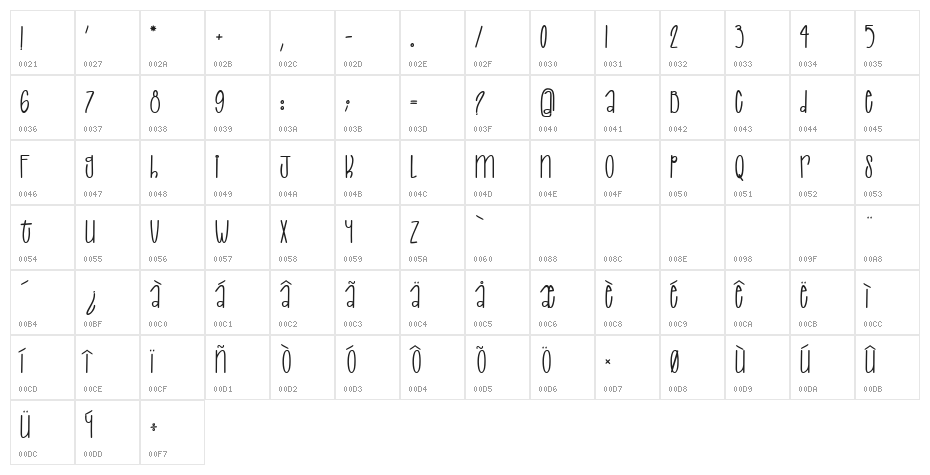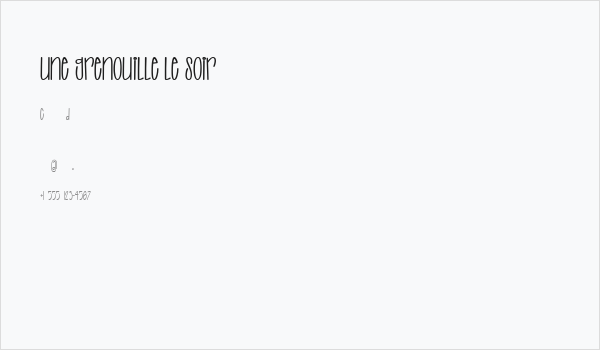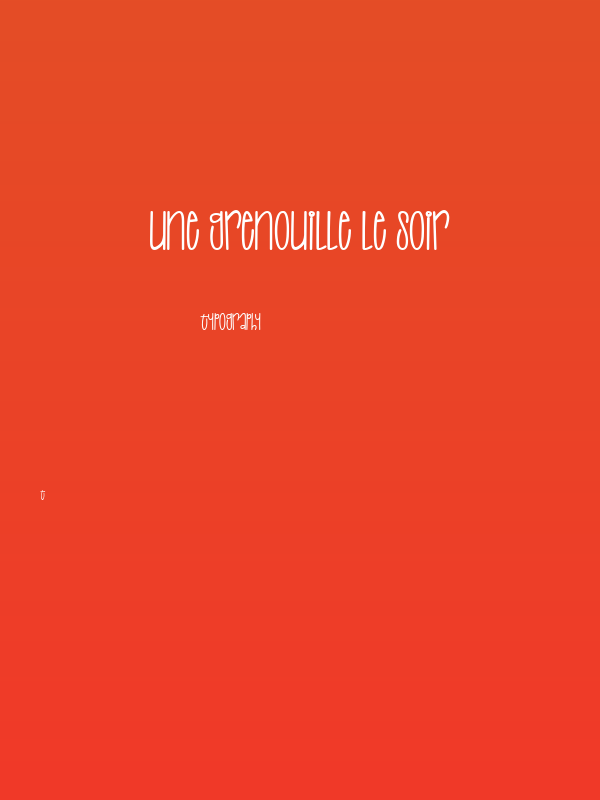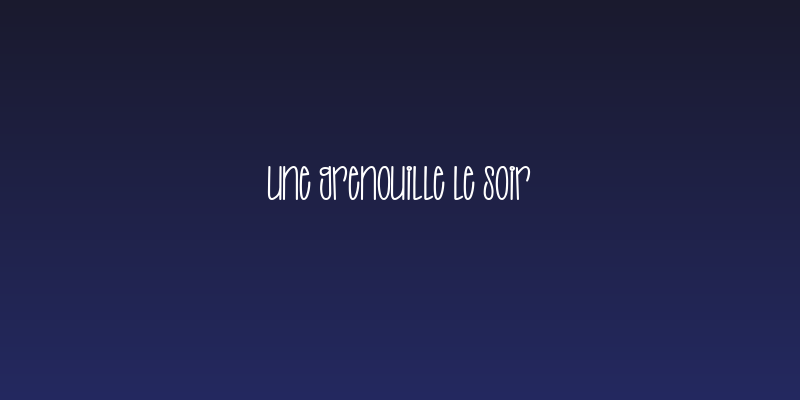
UNE GRENOUILLE LE SOIR Font
UNE GRENOUILLE LE SOIR Description
This font features a playful and whimsical style with tall, narrow characters that have a hand-drawn appearance. The letters are slightly irregular, adding to the casual and friendly feel. The strokes are consistent in width, providing a uniform look across all characters. The uppercase and lowercase letters are distinct, with the uppercase being more elongated. Numbers and special characters maintain the same playful style, making the font versatile for various uses. The overall design is clean yet quirky, perfect for projects that require a touch of personality.
| Use Case | Headlines, Logos, Casual Text |
| Proposed Projects | Ideal for children's books, greeting cards, playful branding, and casual invitations. |